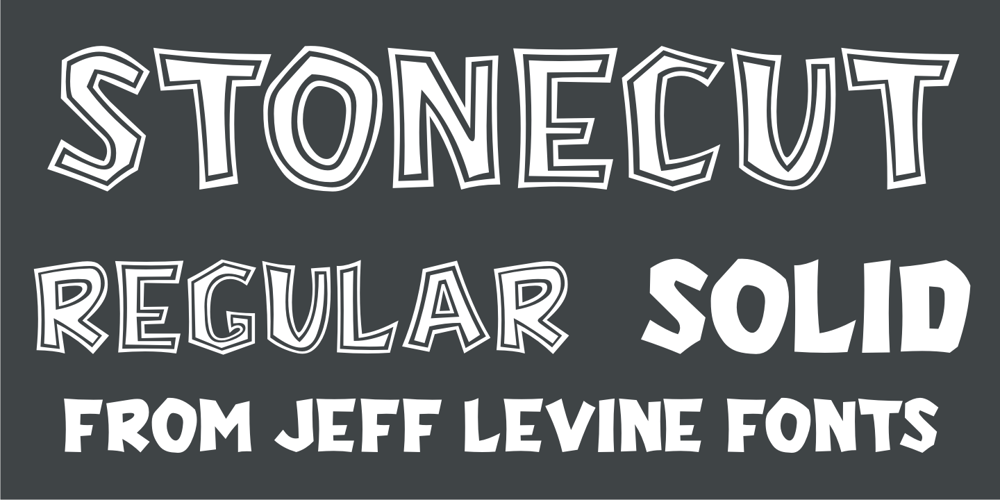
Stonecut JNL
Stonecut JNL font
Stonecut JNL Font Family was designed by Jeff Levine and published by Jeff Levine. Stonecut JNL contains 2 styles and family package options. Stonecut JNL is an adaptation of a novelty display face found in one of the Dan X. Solo lettering books. Resembling letters made from cut stone, both the inline and solid black versions are perfect for themes encompassing outdoors, the Stone Age, “macho” events or anything where an unpolished or rustic look can be adapted.